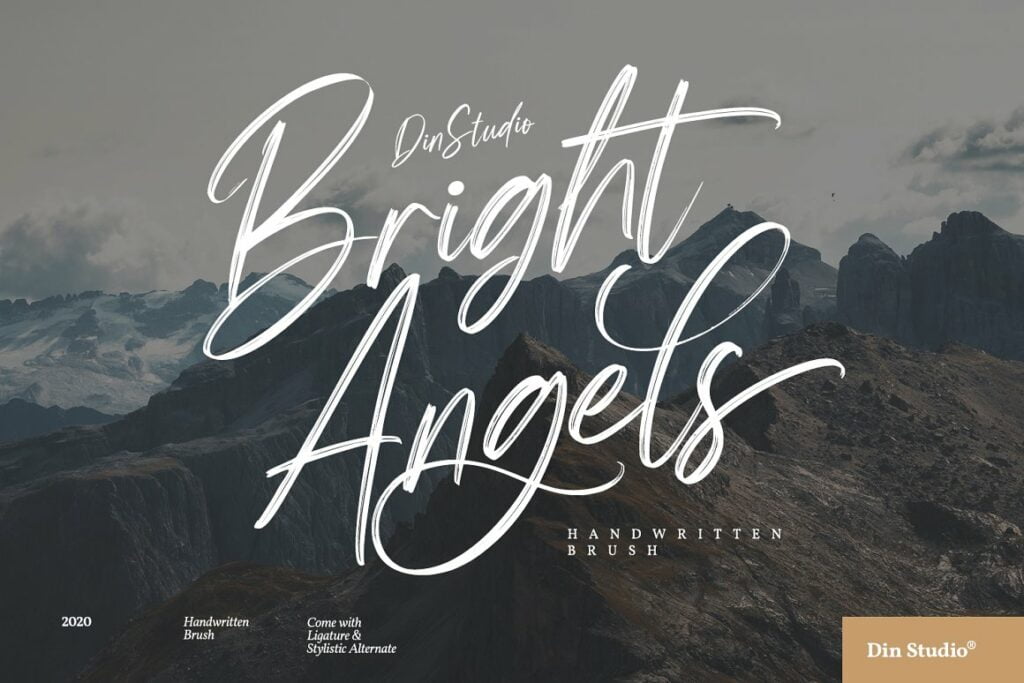
Bright Angels Font
Bright Angels Font is a beautiful and flowing brushed handwritten script typeface. This versatile script font has a wide spectrum of applications ranging from greeting cards to headlines and is guaranteed to add a romantic feel to your next project.
Bright Angels Brush Script Font